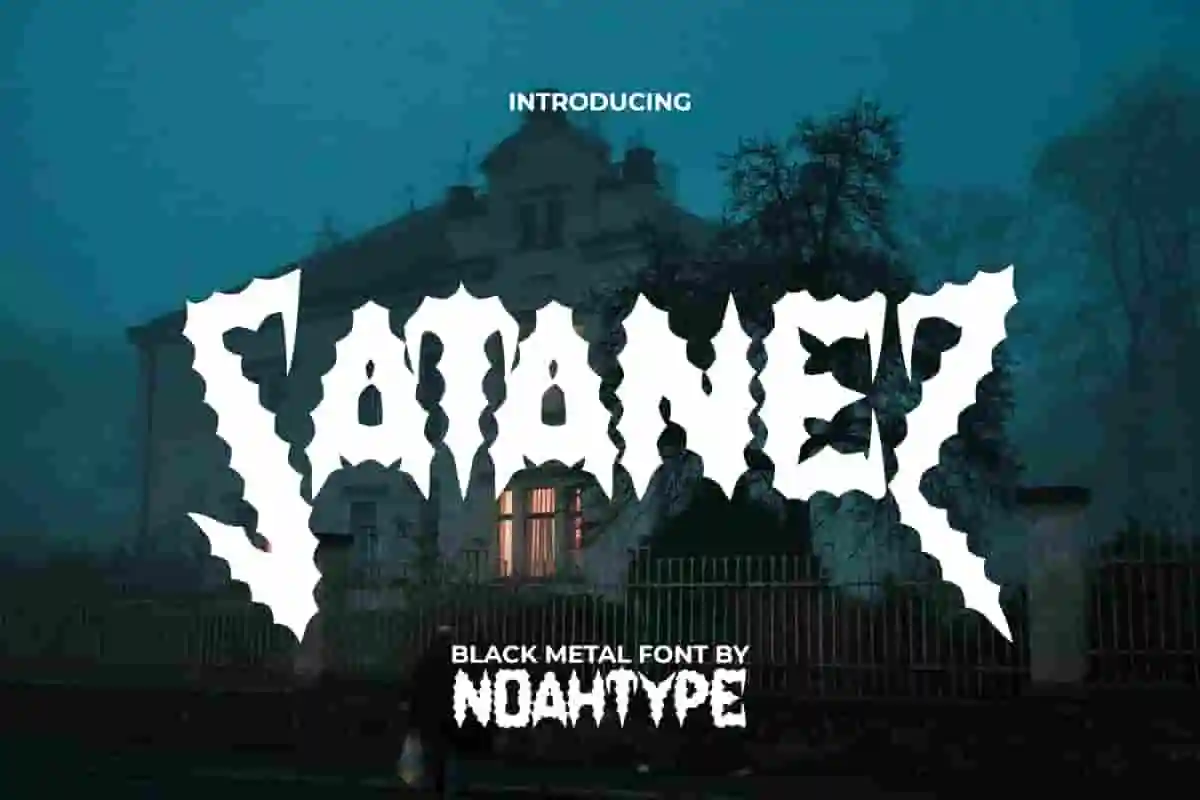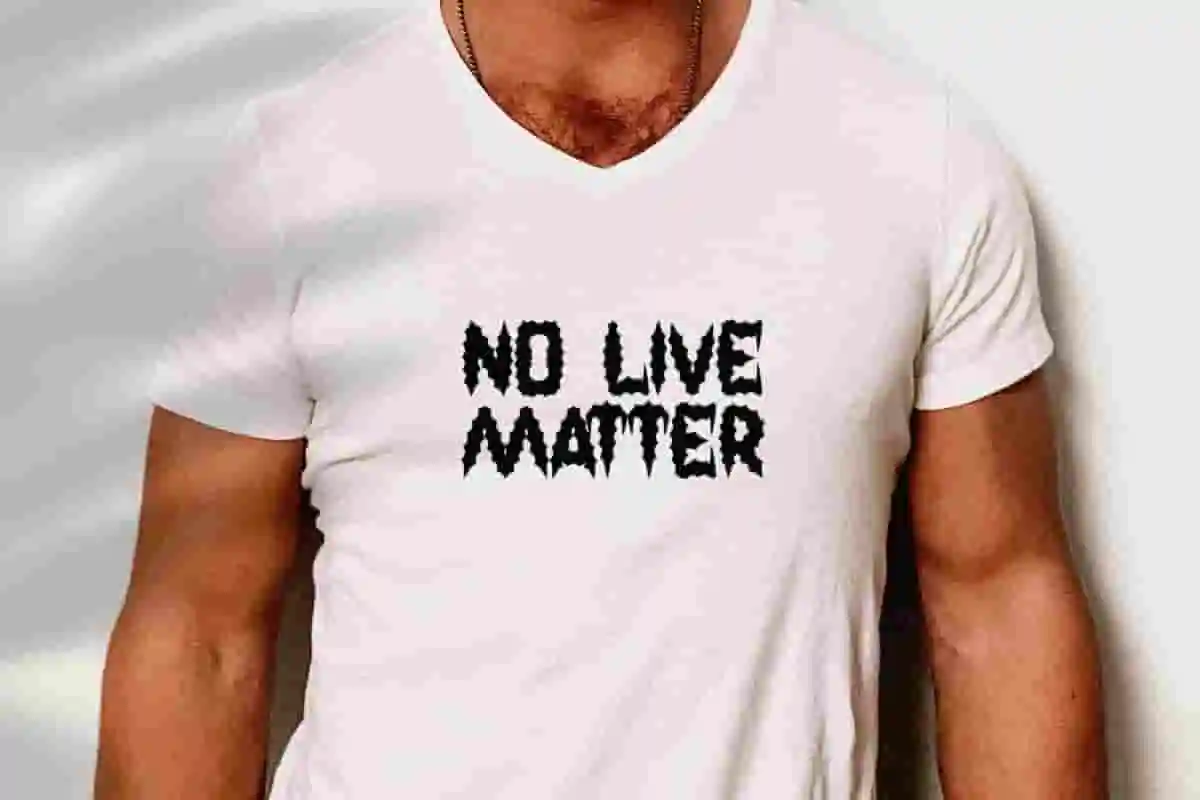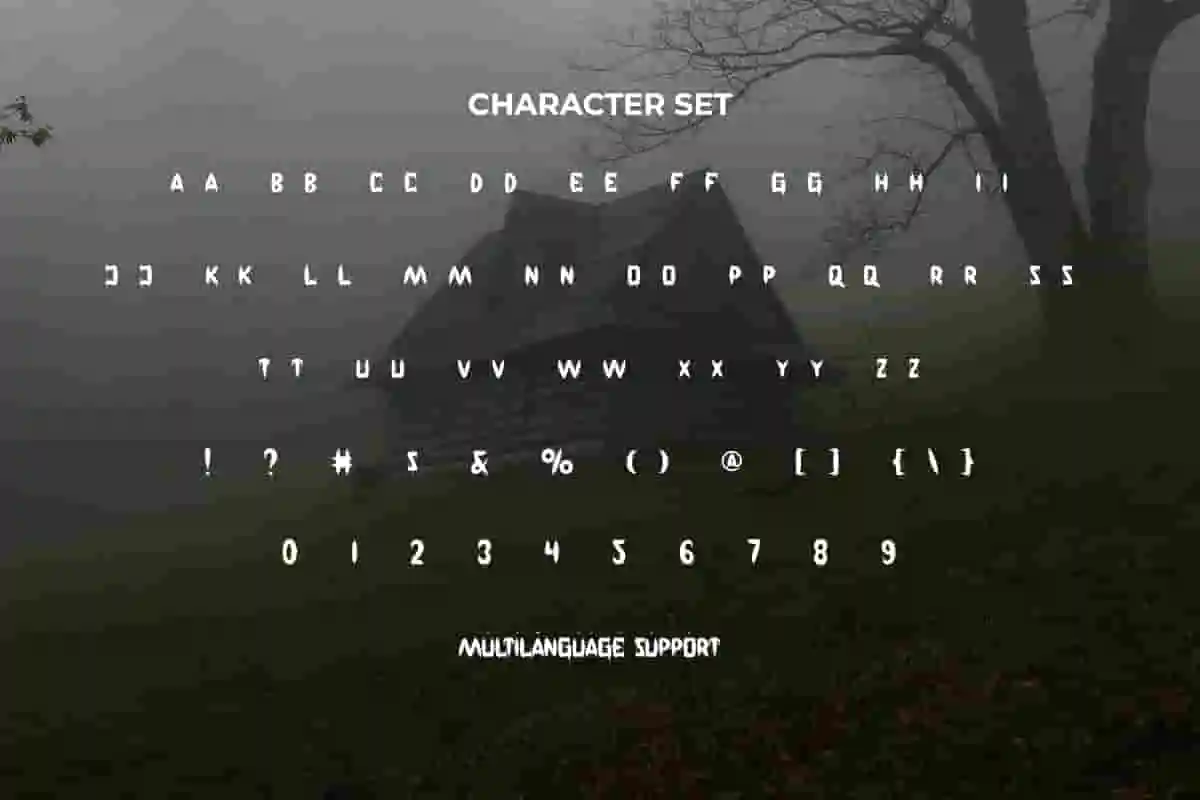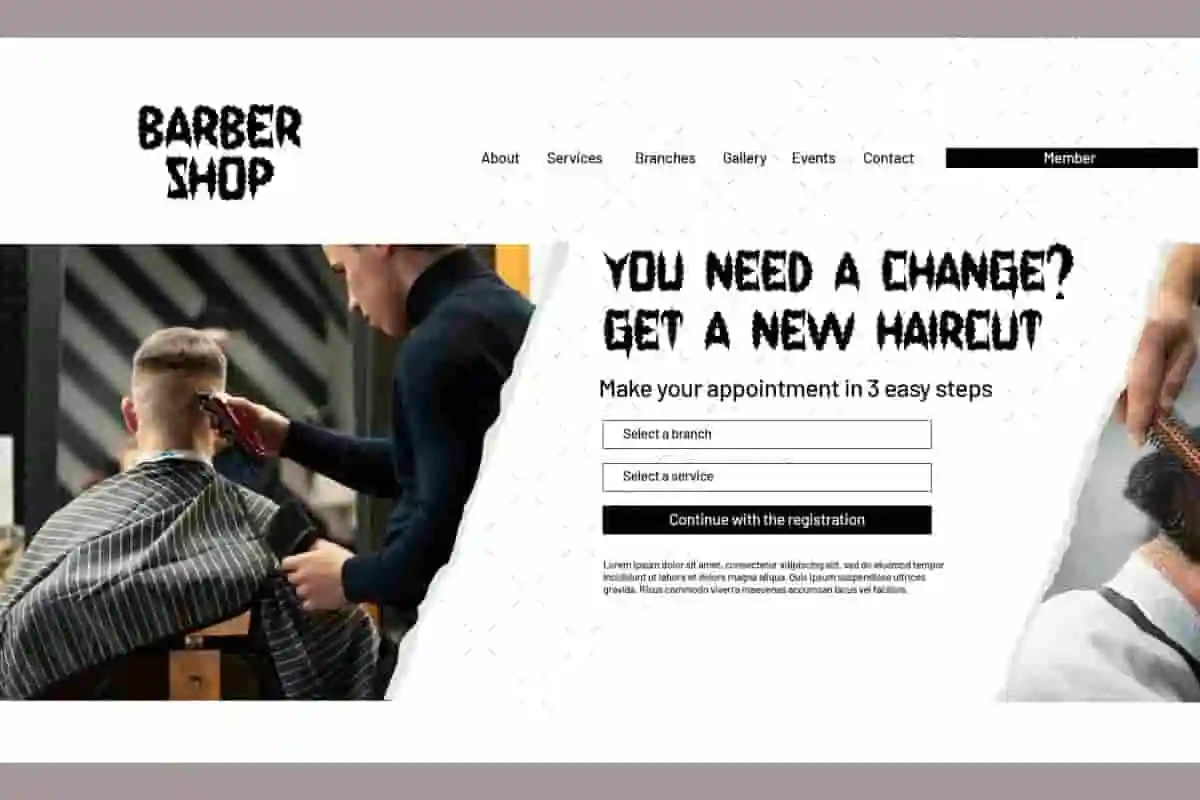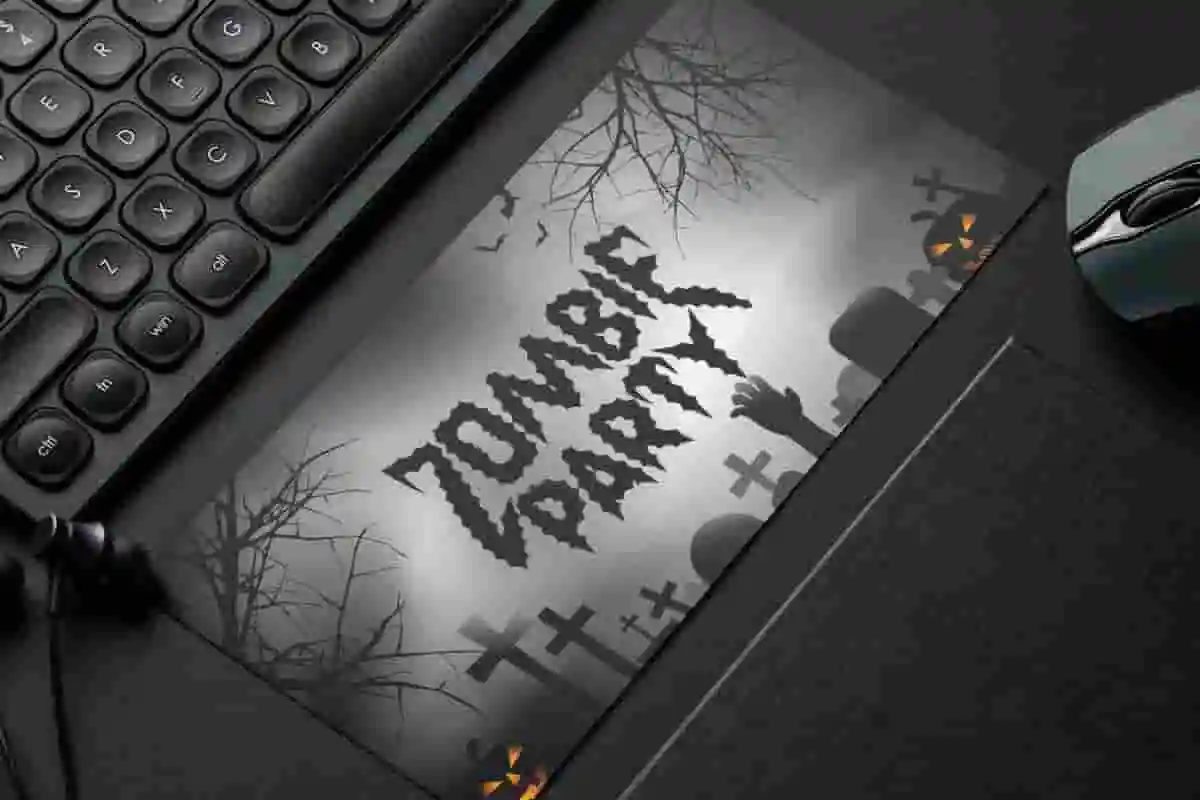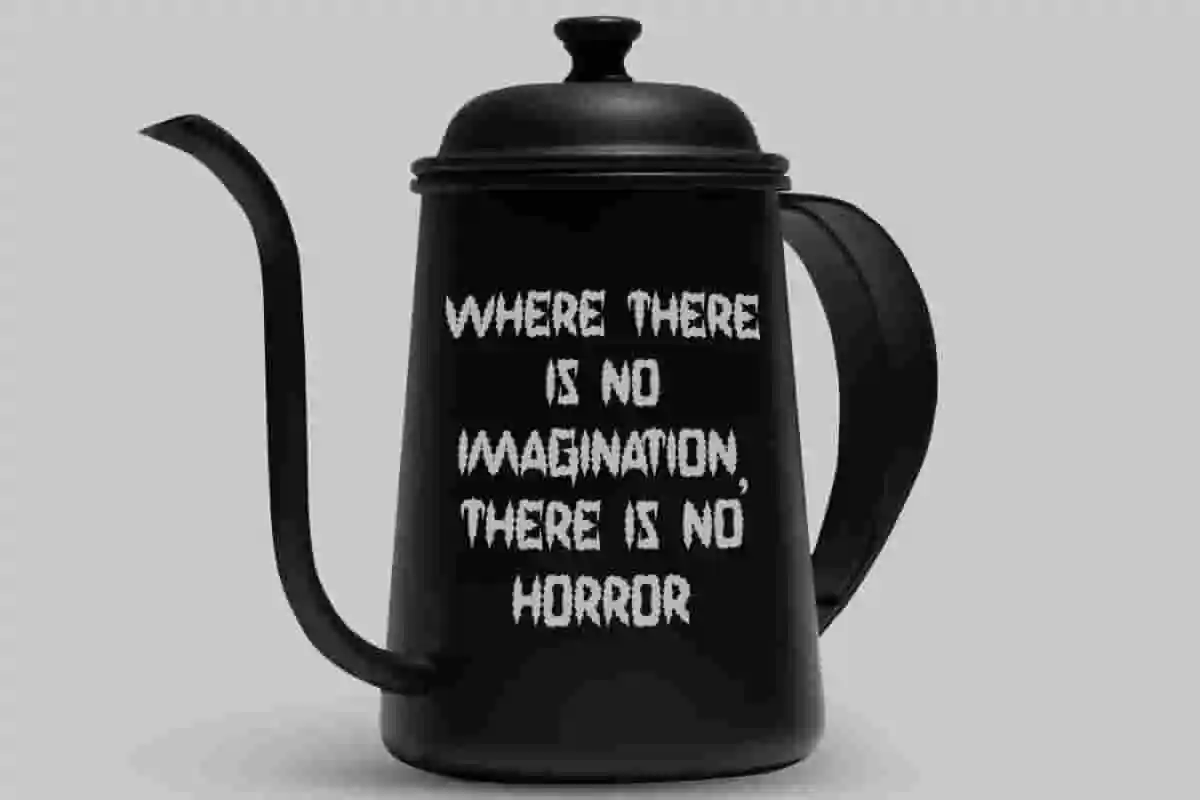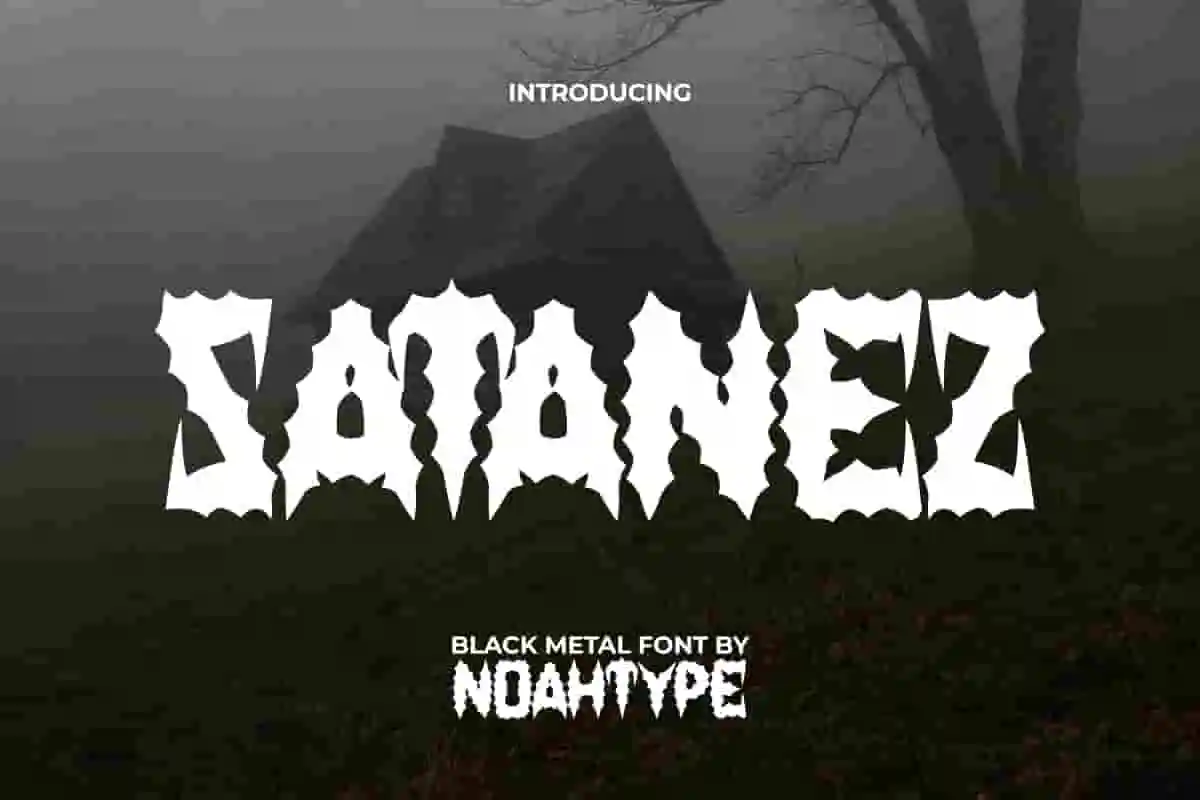
Satanez Font is a horror decorative black metal font by NoahType. This font manages to make your designs look stand out with its bold charm and rough texture. It will be perfect for any designs, such as cover, custom design, signage, poster, brand image, invitation, stationery, label, marketing material, menu, printing, product packaging, quotes, website, and many more!
Satanez Font includes full set of ALL CAPS for Uppercase and Lowercase Basic Characters, Numerals, Punctuation, Symbol, and Alternate character. This font will make your design attractive and also a perfect choice for many industries, such as fashion, game, movie, event or festival, barber shop, accessories, advertising, art, café, printing, publishing, etc.